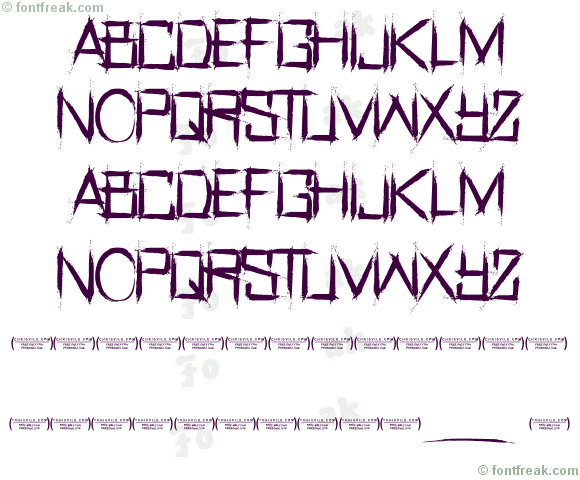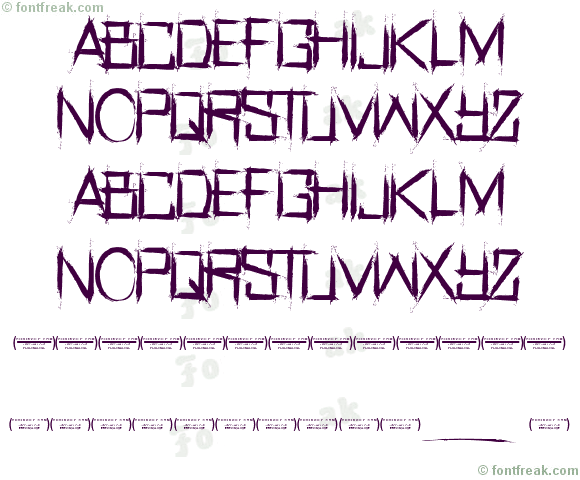
RealHorror-Regular
About RealHorror-Regular
RealHorror-Regular, designed by Chris Vile, falls into the decorative font category, characterized by its unique and haunting aesthetic. This font features sharp, jagged edges and elongated strokes that evoke a sense of unease and suspense, making it particularly suitable for themes related to horror and the macabre. The stroke weight is uneven, creating a dynamic contrast that adds to its eerie presence. The spacing between characters is intentionally tight, enhancing its dramatic effect, while the overall structure conveys a sense of urgency and chaos.
This font is ideal for a variety of specific use cases. It shines in the design of movie posters, especially for horror films that seek to attract attention with a bold visual statement. Additionally, RealHorror-Regular can be effectively utilized in the creation of Halloween-themed party invitations, where its unsettling charm can set the tone for spooky celebrations. Graphic designers may also find it useful for book covers in the horror genre, as it encapsulates the essence of thrilling narratives. Furthermore, this font can enhance merchandise designs for haunted attractions or escape rooms, making it a versatile choice for small business owners in the entertainment industry.
The target audience for RealHorror-Regular includes graphic designers, content creators, and small business owners who seek to communicate a specific atmosphere through typography. The distinctiveness of this font allows it to stand out in a sea of more conventional typefaces, offering a unique voice that resonates with themes of suspense and fright.